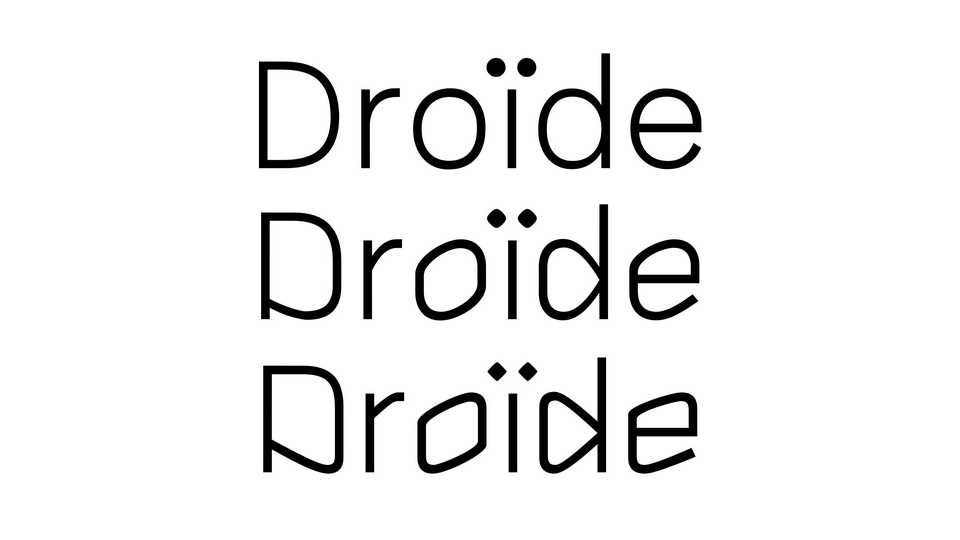
Download Droide font, a variable display sans-serif typeface that transforms from smooth, curvy lines (Anthro) to rough, straight lines (Futur), creating a new form of contrast.
Designer: RandomMaerks